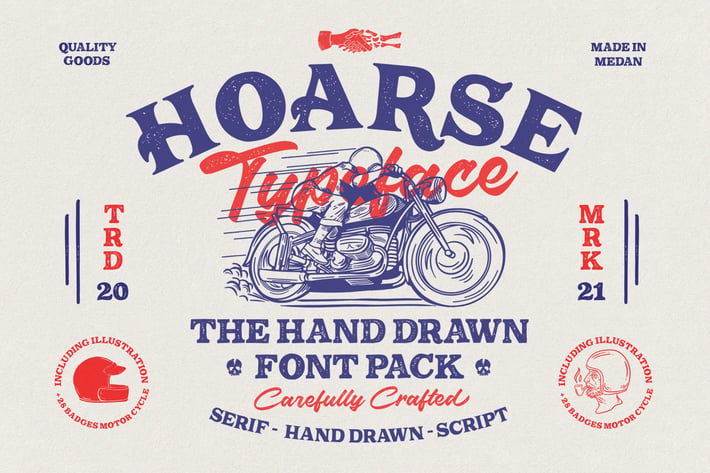
HOARSE | Font Pack
HOARSE Font Pack is a organic display typeface inspired by vintage type with handdrawn feel. Comes with regular, stamp, slanted and slanted stamp styles.